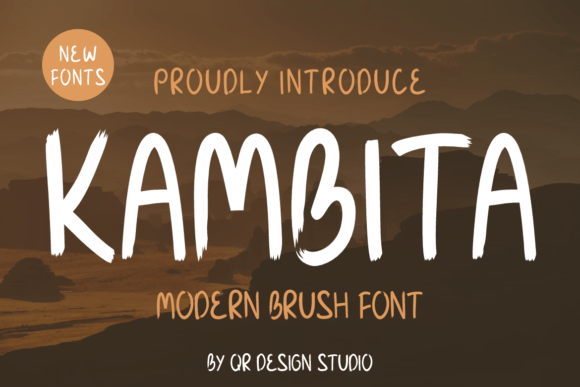
Kambita Font: A Bold and Authentic Handwritten Font for Your Branding Projects
In the world of typography, fonts play a crucial role in conveying the tone and personality of a brand. A well-chosen font can elevate a brand’s visual identity and make it stand out from the competition. One such font that has gained popularity among designers and brands is the Kambita Font. In this article, we’ll explore the features, benefits, and uses of the Kambita Font, and why it’s an excellent choice for your branding projects.
What is Kambita Font?
Kambita Font is a bold and authentic handwritten font designed to add a personal touch to your branding projects. Its unique and elegant style makes it perfect for creating a wide range of designs, from banners and logos to sports and web design projects.
Benefits of Using Kambita Font
The Kambita Font offers several benefits that make it an attractive choice for designers and brands. Some of the key benefits include:
- Unique and Authentic Style: The Kambita Font has a distinctive and authentic handwritten style that sets it apart from other fonts.
- Versatility: The font is suitable for a wide range of designs, including banners, logos, sports, web design, and project packaging.
- Easy to Read: Despite its bold and decorative style, the Kambita Font is easy to read, making it perfect for body text and headlines.
- High-Quality: The font is designed with high-quality and precision, ensuring that it looks great in any design.
Uses of Kambita Font
The Kambita Font is a versatile font that can be used in a variety of design projects. Some of the most popular uses of the font include:
- Branding and Logo Design: The Kambita Font is perfect for creating unique and memorable logos that reflect a brand’s personality.
- Banners and Posters: The font’s bold and eye-catching style makes it ideal for creating attention-grabbing banners and posters.
- Sports and Fitness: The Kambita Font’s energetic and dynamic style makes it a popular choice for sports and fitness branding projects.
- Web Design: The font’s clean and elegant style makes it suitable for web design projects, including website headers, titles, and body text.
- Project Packaging: The Kambita Font can be used to create eye-catching and unique packaging designs that stand out on store shelves.
Design Tips for Using Kambita Font
To get the most out of the Kambita Font, here are some design tips to keep in mind:
- Use it as a Headline Font: The Kambita Font is perfect for headlines and titles, where its bold and eye-catching style can shine.
- Pair it with a Simple Font: To create visual interest, pair the Kambita Font with a simple and clean font for body text.
- Experiment with Colors: The Kambita Font looks great in a variety of colors, so don’t be afraid to experiment and find the perfect color scheme for your design.
- Use it in Combination with Images: The Kambita Font can be used in combination with images to create stunning and effective designs.
Font Pairing Suggestions
To create visually appealing designs, it’s essential to pair the Kambita Font with complementary fonts. Here are some font pairing suggestions:
- Open Sans: A clean and modern sans-serif font that pairs well with the Kambita Font’s bold and handwritten style.
- Lato: A sleek and elegant sans-serif font that complements the Kambita Font’s energetic and dynamic style.
- Merriweather: A classic and elegant serif font that pairs well with the Kambita Font’s bold and decorative style.
| Author | qrdesignstd |
In conclusion, the Kambita Font is a bold and authentic handwritten font that is perfect for branding projects, including banners, logos, sports, web design, and project packaging. Its unique and elegant style makes it stand out from other fonts, and its versatility and ease of use make it a popular choice among designers and brands. By following the design tips and font pairing suggestions outlined in this article, you can create stunning and effective designs that showcase the Kambita Font’s beauty and elegance.